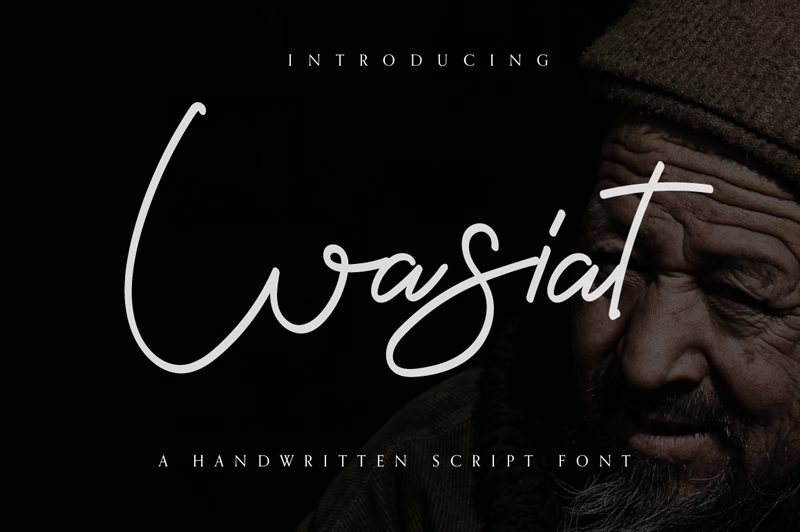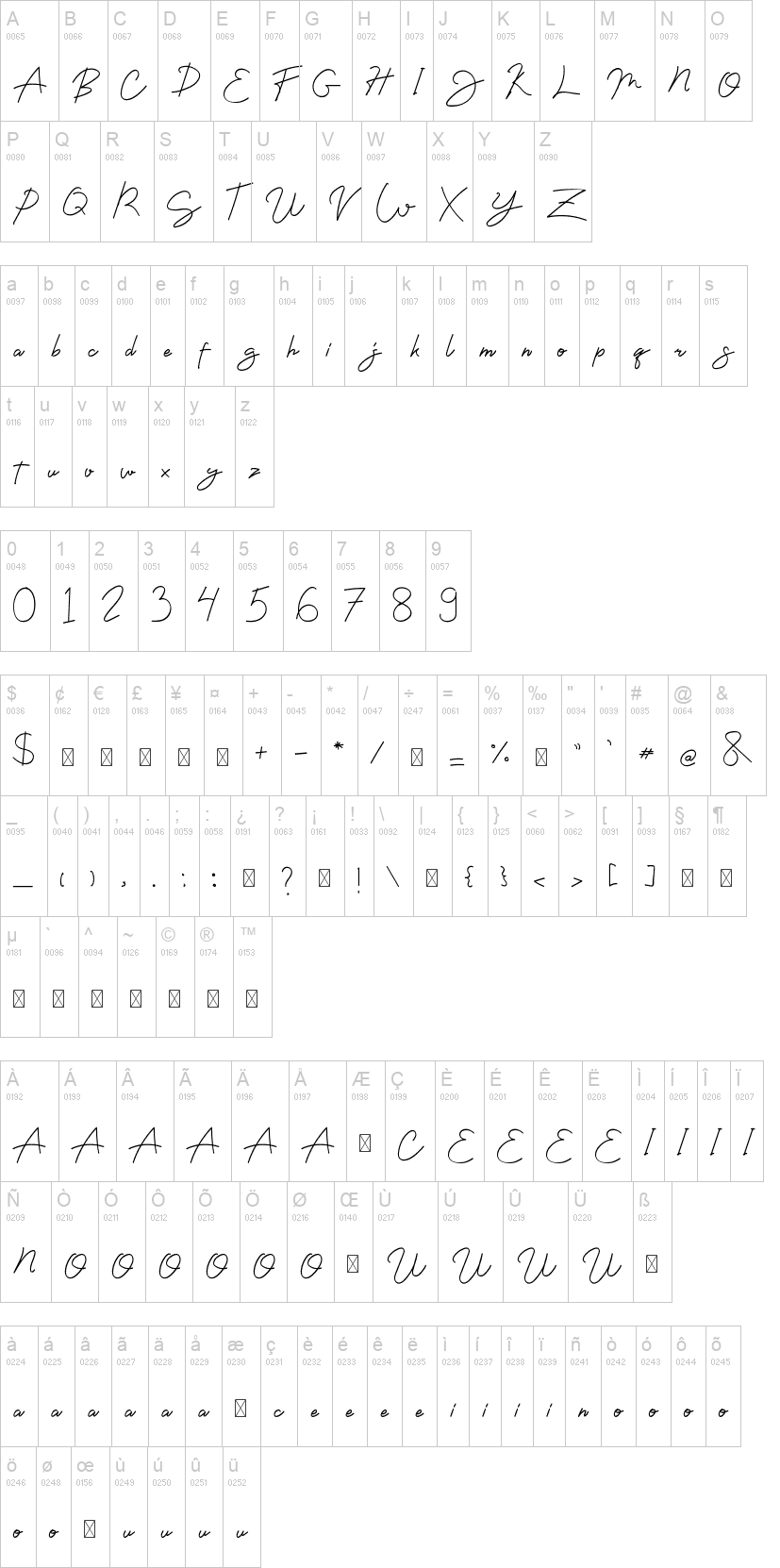
Note of the authorWasiat is a delicate and elegant handwritten font. Its distinct and well rounded letters make this font a masterpiece. Fall in love with its incredibly versatile style and use it to create spectacular designs!